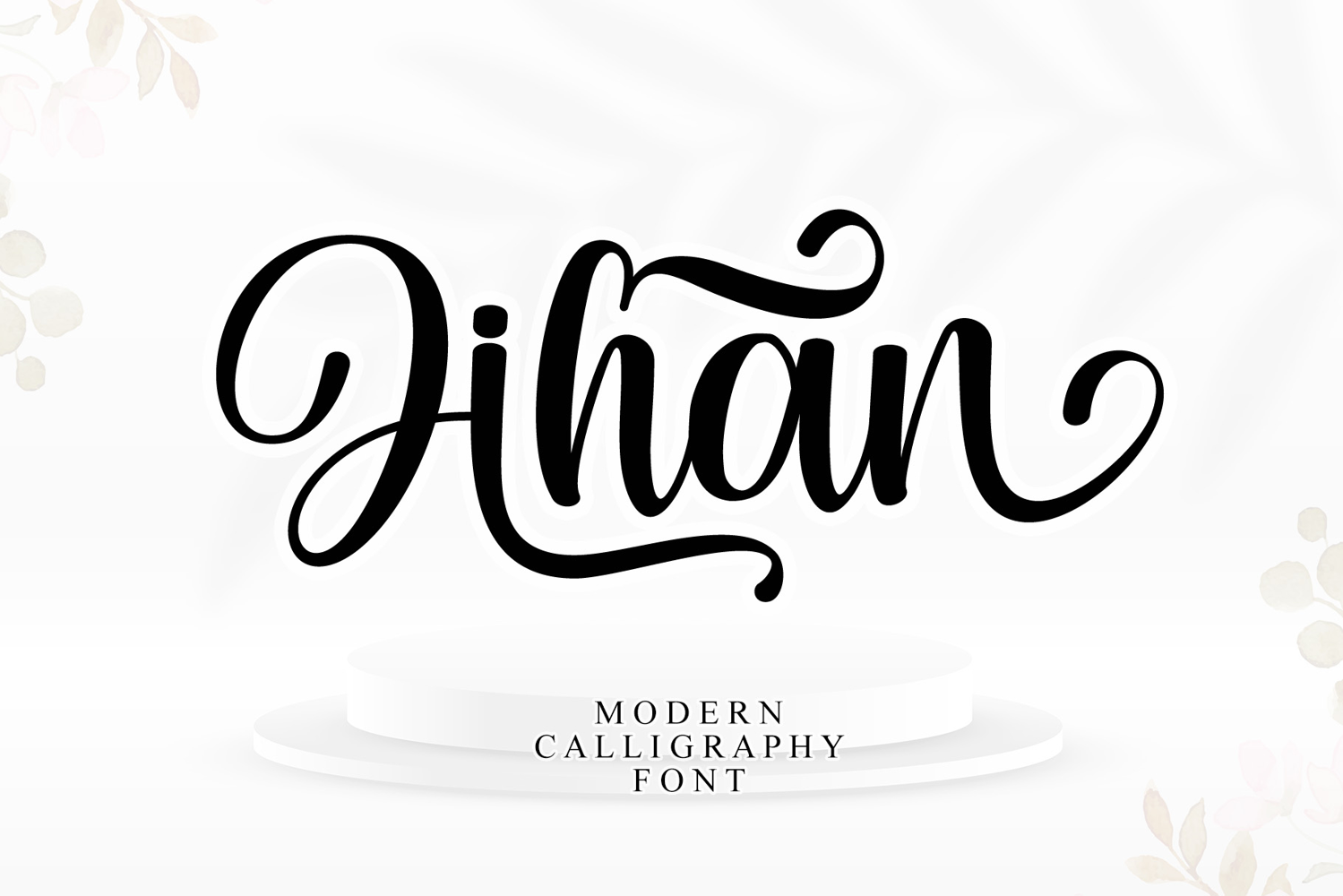
Jihan – Modern Calligraphy Font is an elegant and sophisticated handwritten script font designed to bring a graceful, luxurious touch to your creative projects.
Featuring smooth flowing strokes, beautiful curves, and stylish calligraphic details, Jihan is perfect for creating stunning logos, branding, wedding invitations, greeting cards, social media designs, quotes, stationery, packaging, and other elegant projects.
Its modern calligraphy style combines a feminine and timeless aesthetic, making it versatile. Whether you're creating a romantic wedding suite, boutique branding, personalized gifts, or beautiful typography artwork, Jihan will add an elegant handwritten feel to your designs.